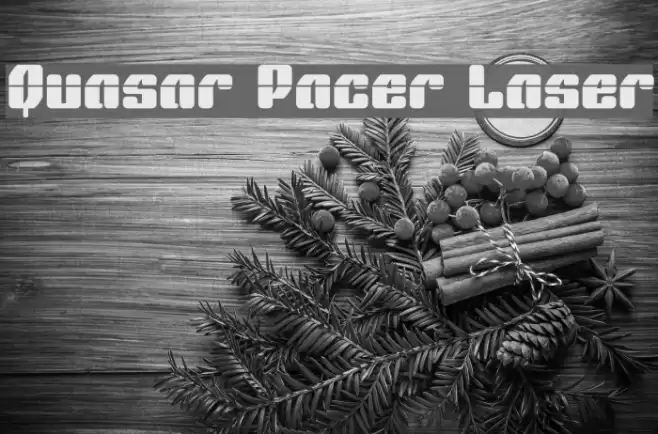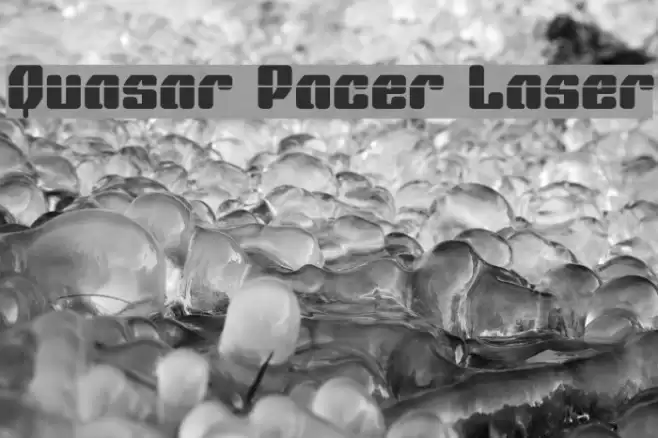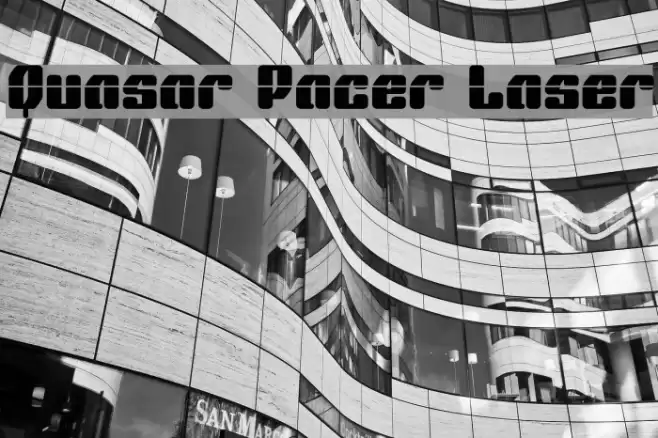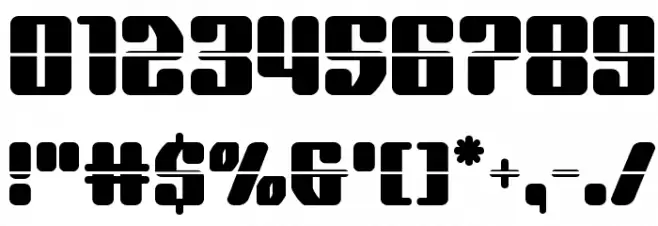
Quasar Pacer Laser Font
Quasar Pacer Laser Description
This font features a bold and futuristic design with a strong geometric structure. The characters are constructed with thick, uniform strokes that create a sense of solidity and impact. The rounded edges and consistent width give it a modern, tech-inspired appearance. The uppercase and lowercase letters maintain a cohesive style, while the numerals and special characters integrate seamlessly with the overall design. This font is ideal for projects that require a bold, eye-catching display, such as technology branding, sci-fi themes, or modern advertising.
A bold, futuristic font with geometric and tech-inspired design from Uncategorized fonts.
- Proposed Projects: Ideal for technology branding, sci-fi themes, modern advertising, and bold display projects.